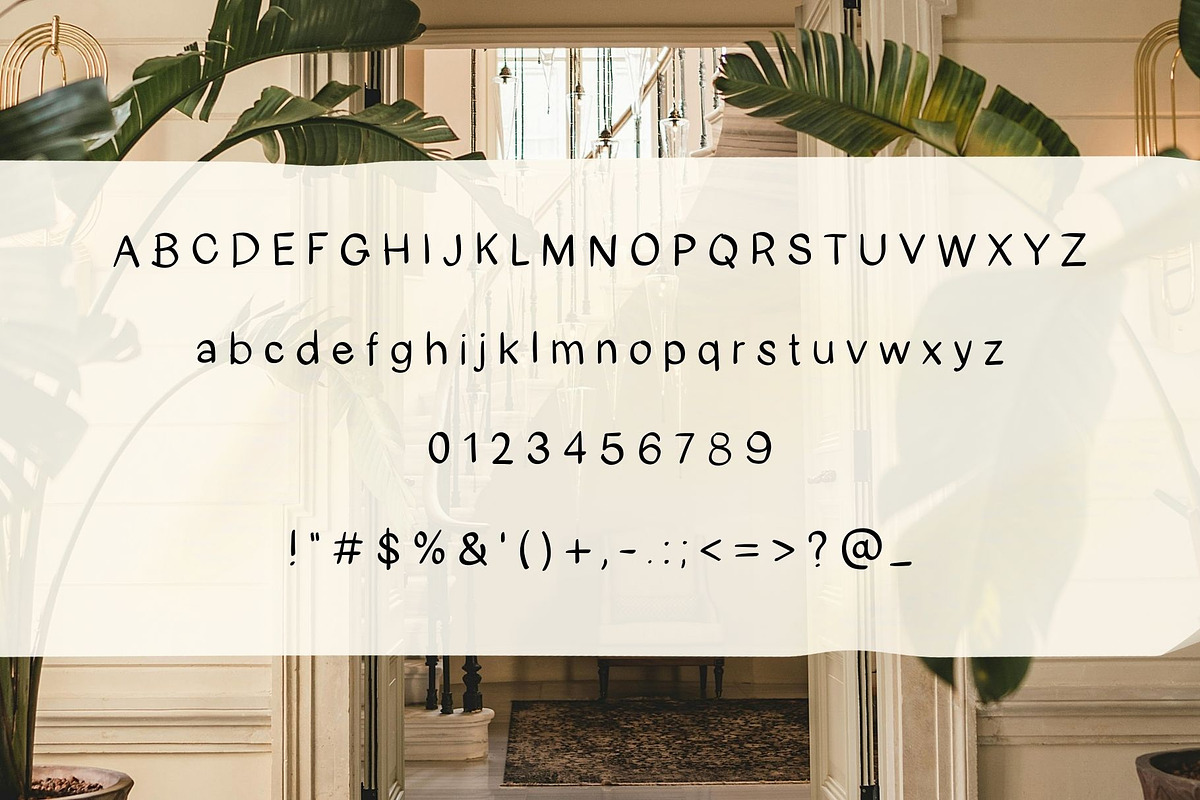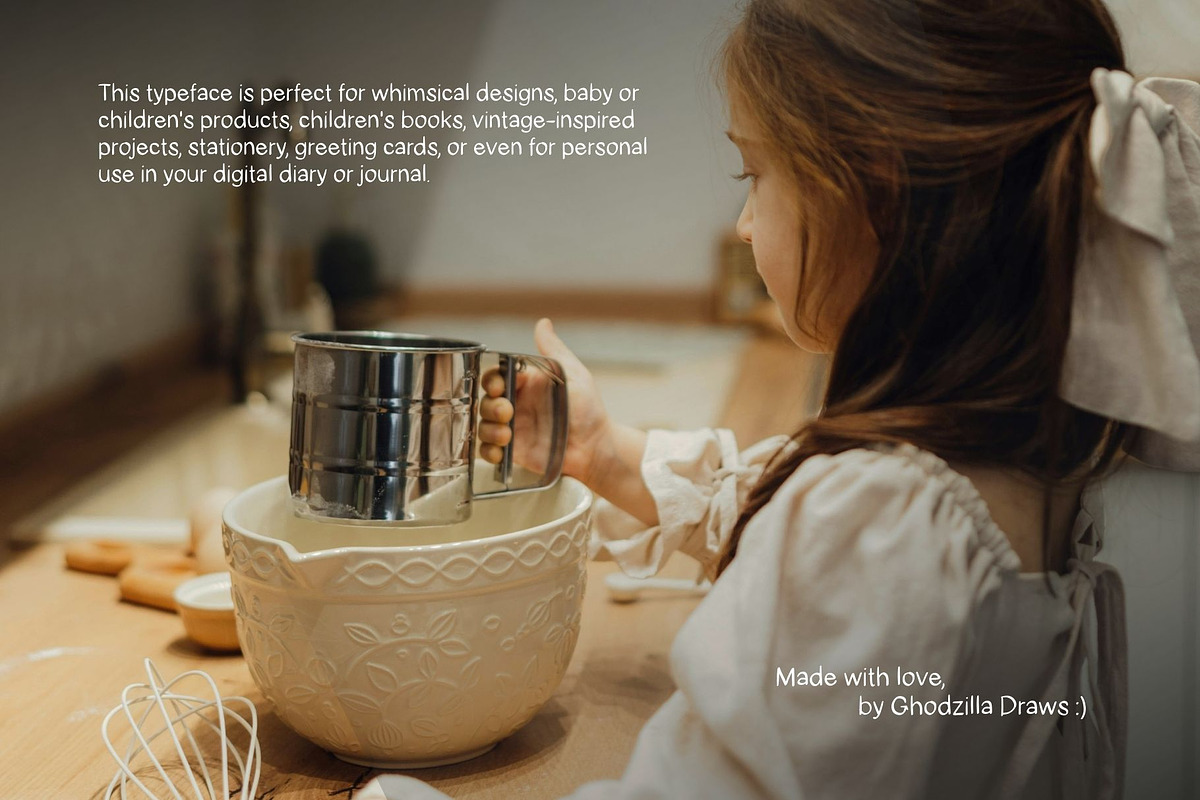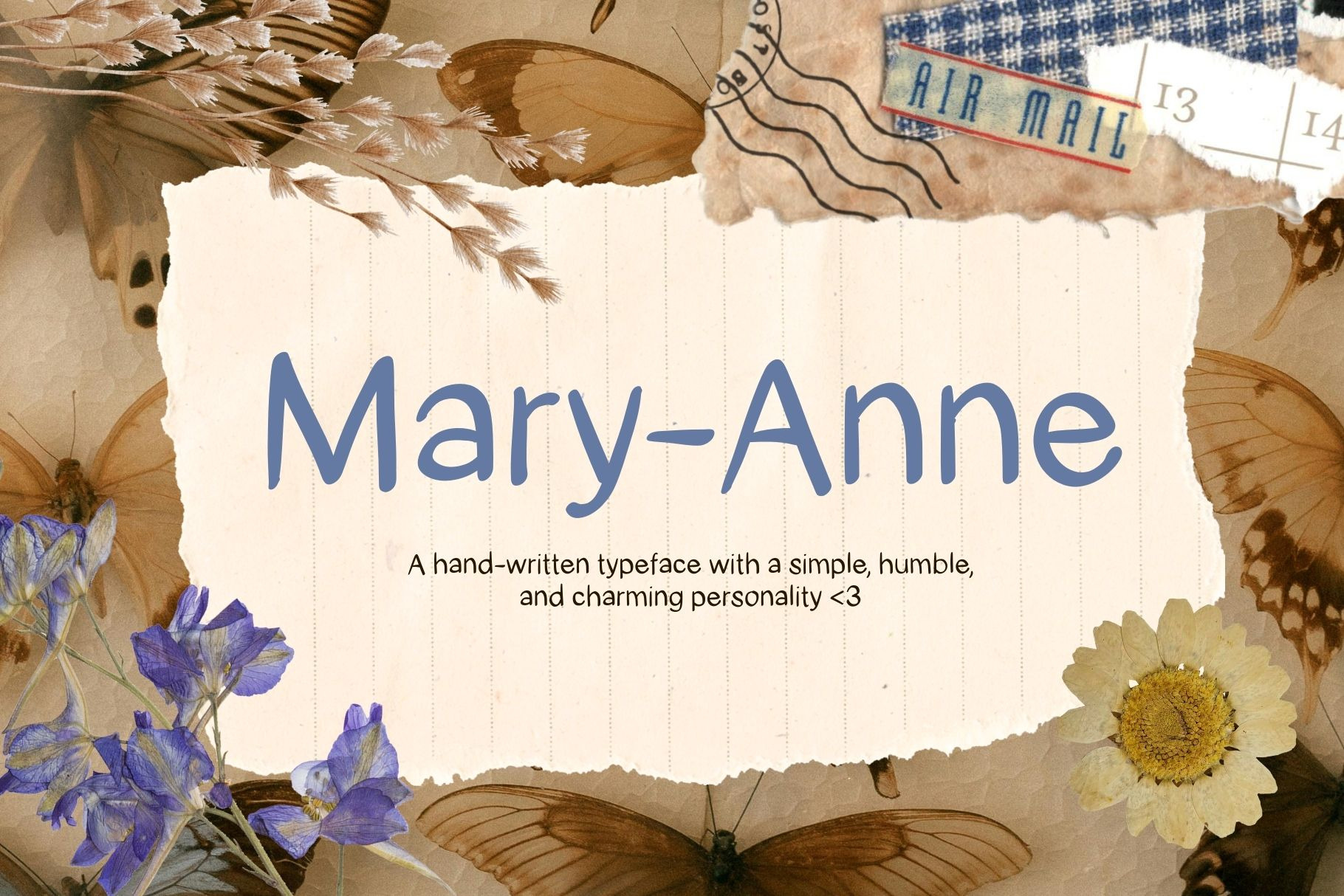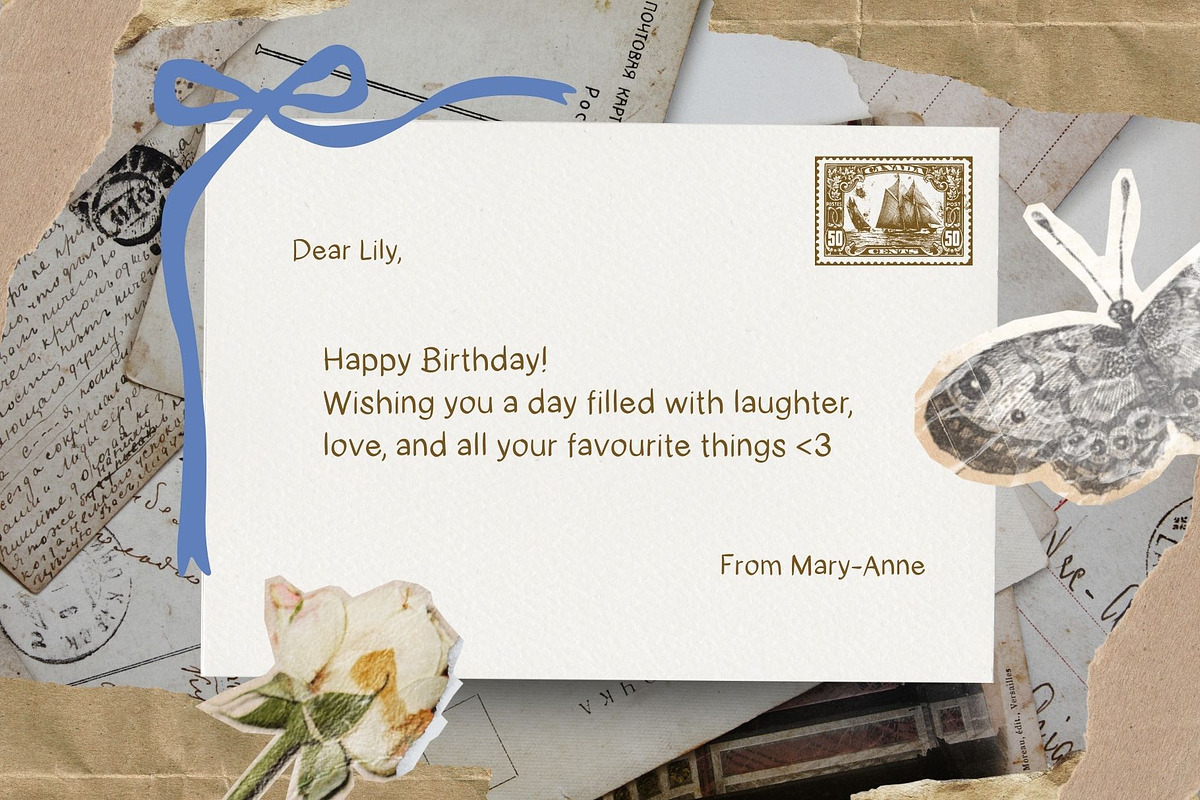
Mary-Anne Whimsical San Serif Font
Bring your projects to life with Mary-Anne, a whimsical hand-written typeface filled with simple, humble, and understated charm. Each letter is naturally imperfect and lovingly hand-drawn (by meee!), giving your text a warm, personal, and heartfelt feel, just like a handwritten note. Designed to feel soft, friendly, and approachable, this font adds a gentle, playful touch to designs that call for sincerity and sweetness.
Mary-Anne works beautifully across a wide range of creative projects, from children’s books, baby and kids products, and vintage-inspired designs to stationery, greeting cards, journals, packaging, and personal branding.
Whether you’re designing for a small brand, crafting heartfelt messages, or creating cozy, nostalgic visuals, Mary-Anne helps your work feel more human, charming, and full of personality.